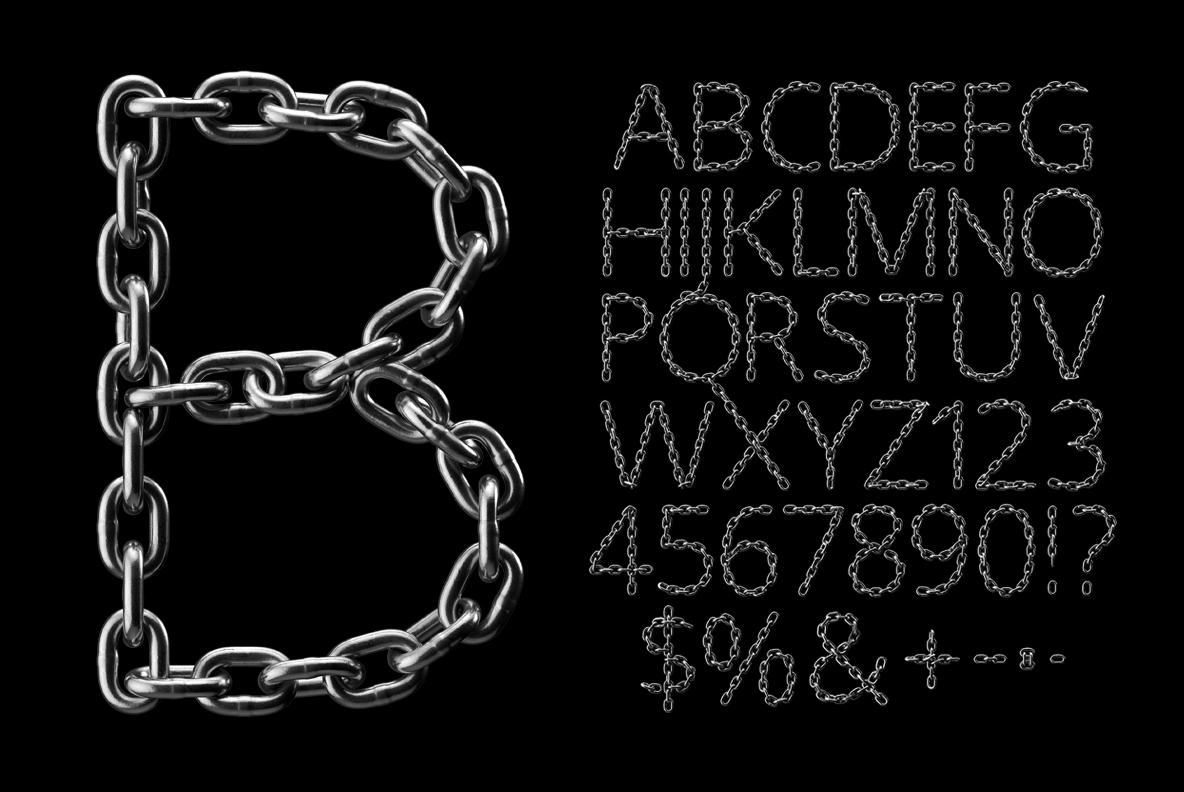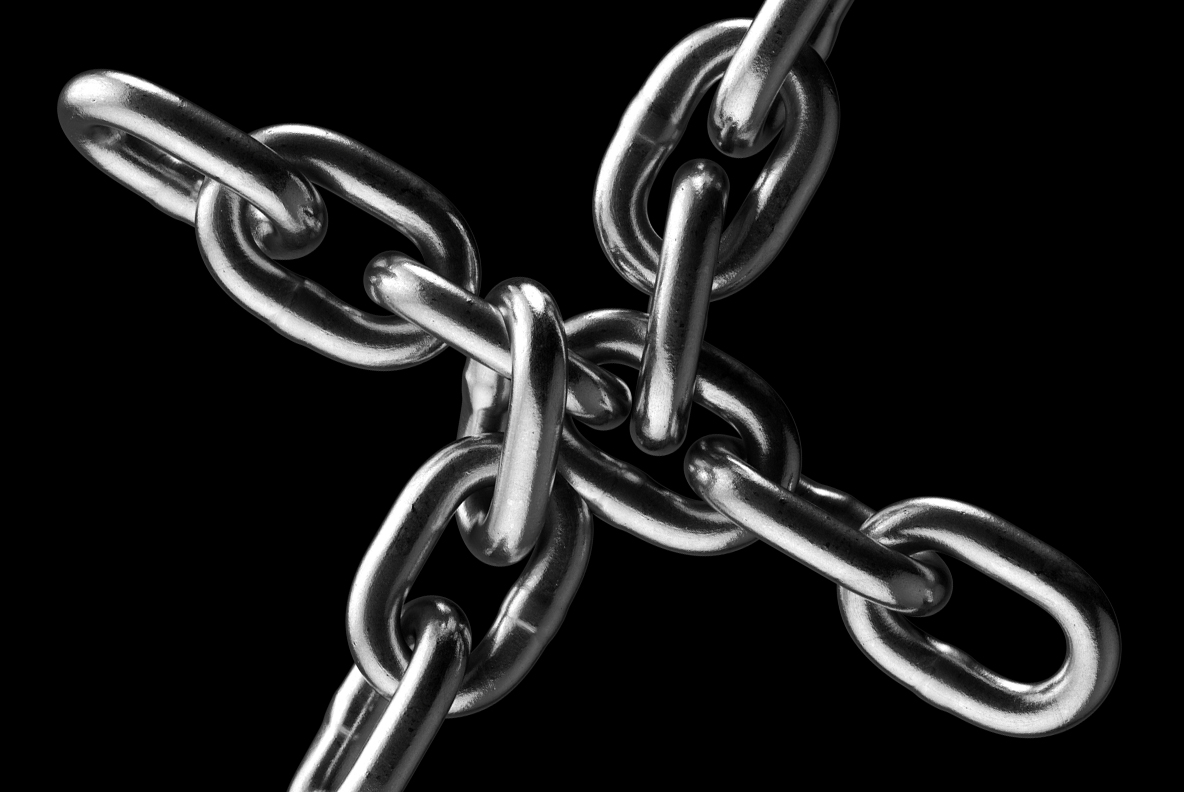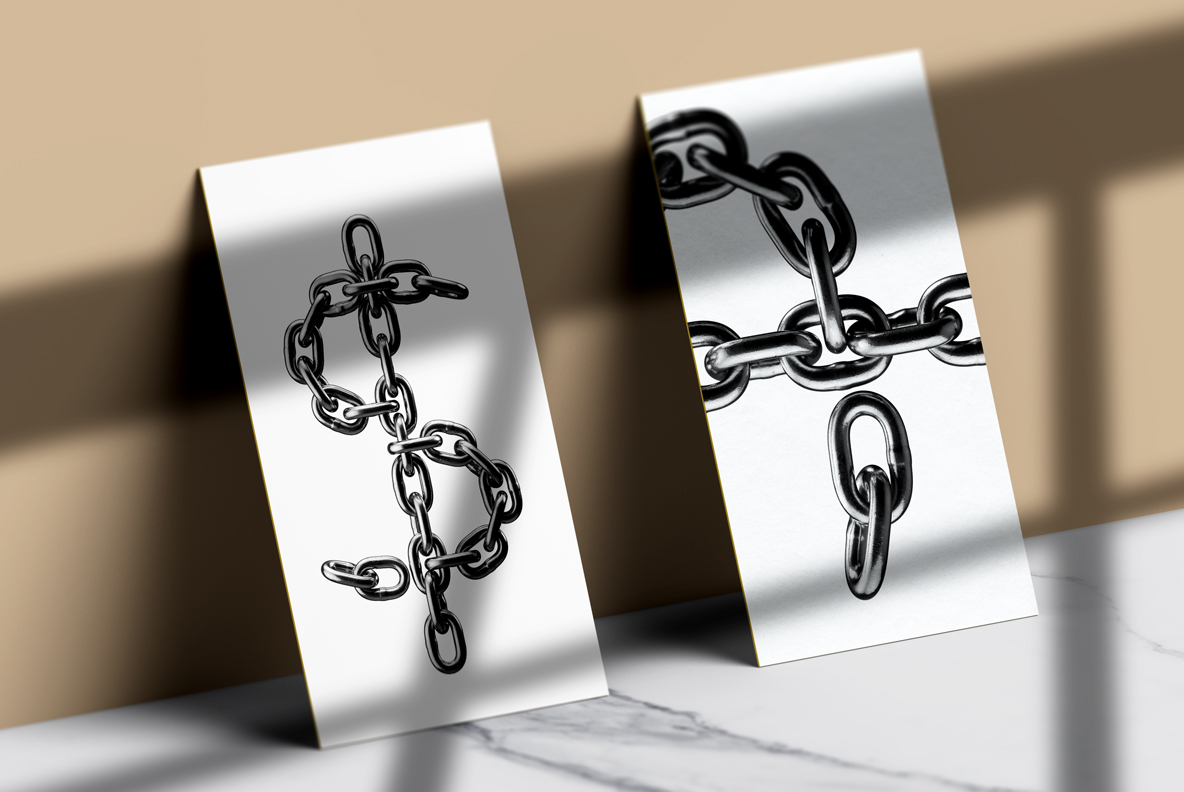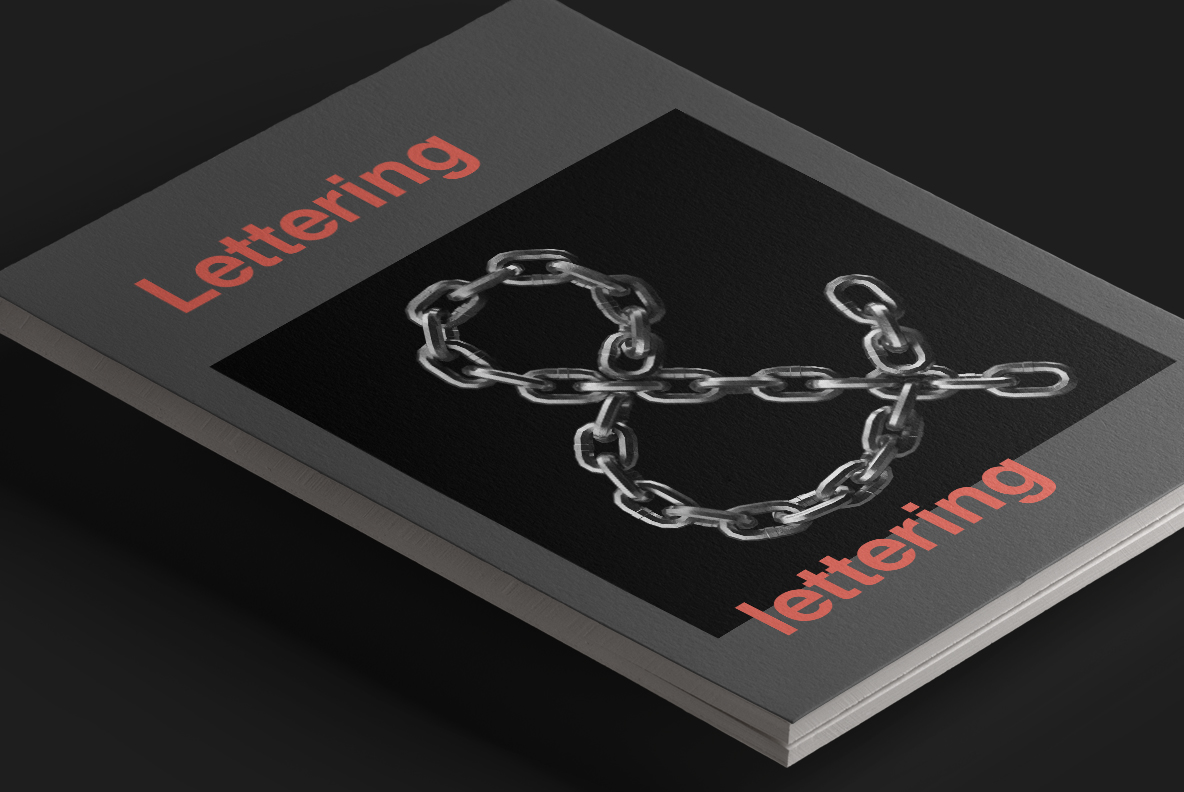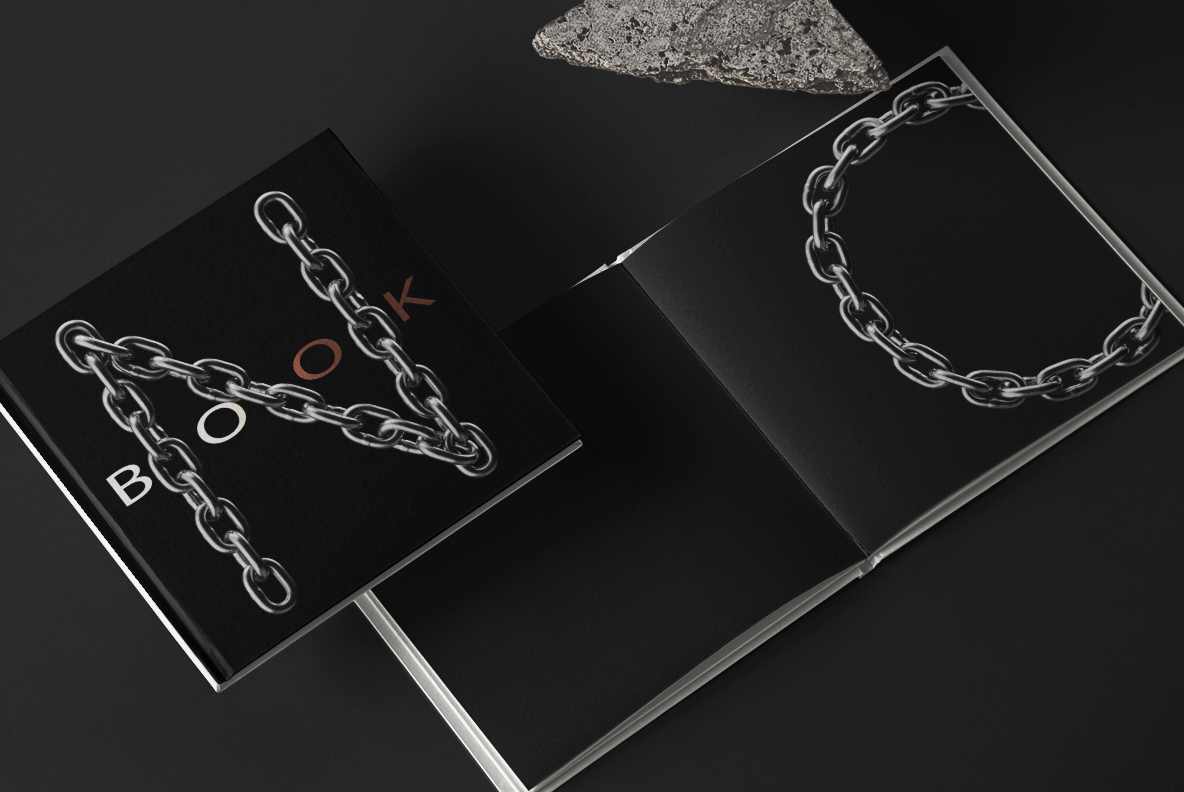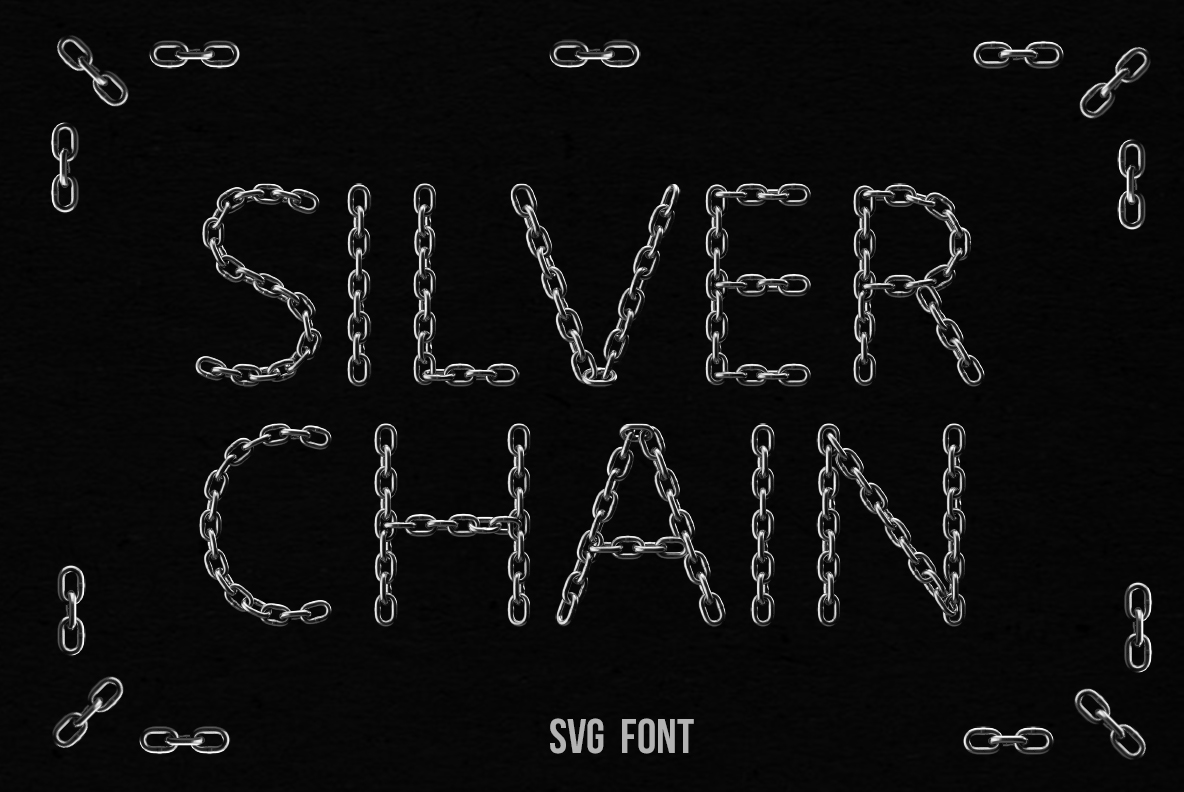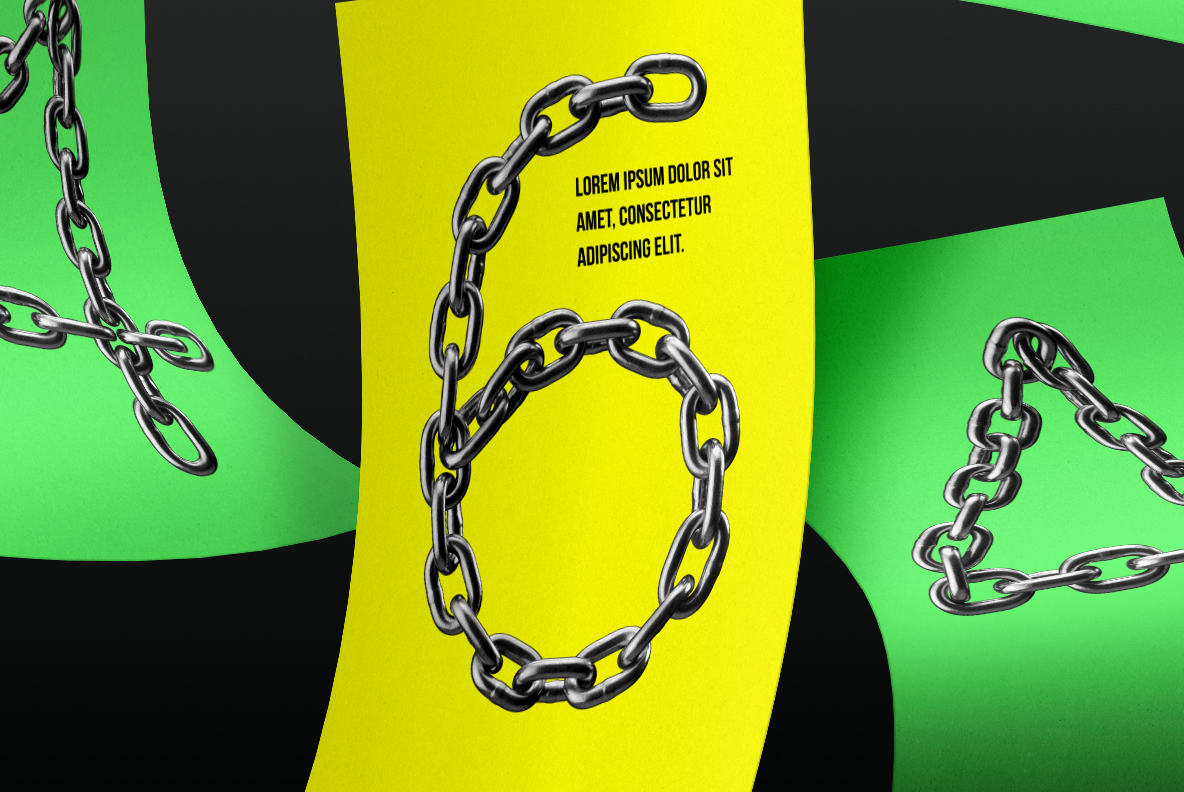
Silver Chain Font. Mirror Chrome Chain Alphabet
Silver Chain Font threads one run of heavy mirror-chrome links along a thin monoline skeleton, so each letter is drawn by the chain itself. Because the links stay bright and highly polished, dark backgrounds make them snap. Loose ends hang free at the terminals, and the OTF plus transparent PNG files ship together.
Silver Chain Font Threads One Chain Through Each Letter
Silver Chain Font runs a single line of heavy oval links along every character, so the chain itself draws the letterform. Because the links interlock and twist as the stroke turns, each glyph shows both flat and edge-on faces. Meanwhile loose ends hang free at the terminals, which keeps the alphabet from looking sealed and mechanical. So the letters read as jewellery laid out on a surface.
Thin Skeleton, Heavy Links
The underlying shapes stay light and monoline, which is unusual for a metal font and the reason whole words stay readable. Since the chrome is polished to a mirror, the links pick up hard white highlights against deep shadow. Besides, the contrast is strong enough that the alphabet works small as well as large. Meanwhile black backgrounds suit it best, because the highlights need darkness to bite against.
Animated preview of the Silver Chain Font showing mirror chrome chain letters in motion
Streetwear, Club Flyers And Music Art
Streetwear labels take to this alphabet first, because a chain already belongs to that wardrobe. Meanwhile club flyers and rap covers use it when a title should look hard and expensive at once. Since the letters stay thin, they sit happily over a photograph where a heavy metal font would block it. So try it as an overlay rather than a solid block.
Silver Chain Font title card with polished chrome links on black
Close view of the heavy interlocking links that draw every Silver Chain Font stroke
Silver Chain Font letters shown on a pair of white business cards
Silver Chain Font lettering on a green and yellow poster
Silver Chain Font characters across an open book spread
Silver Chain Font word set on a grey layout with red accents
Silver Chain Font alphabet and numerals traced in mirror chrome chain